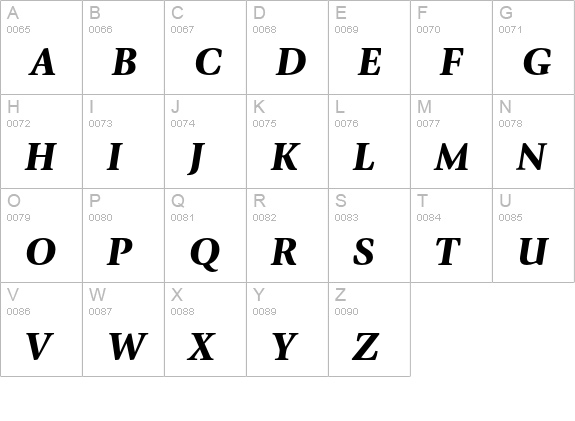
GiovanniEF-BlackItalic Font Details
GiovanniEF-BlackItalic is a stunning and elegant font that exudes sophistication and style. Its sleek and modern design makes it perfect for adding a touch of luxury to any project. The italic style adds a sense of flair and creativity, making it ideal for titles, headings, and other design elements that need to stand out. This font is not only visually appealing but also highly versatile, suitable for a wide range of design purposes. Whether you're working on branding, marketing materials, invitations, or any other creative project, GiovanniEF-BlackItalic is sure to make a statement. Best of all, GiovanniEF-BlackItalic is available for free download at FontsMarket.com. This means you can easily access this premium font without any cost, making it a valuable addition to your font collection. Don't miss out on the opportunity to elevate your designs with the exquisite GiovanniEF-BlackItalic font today!